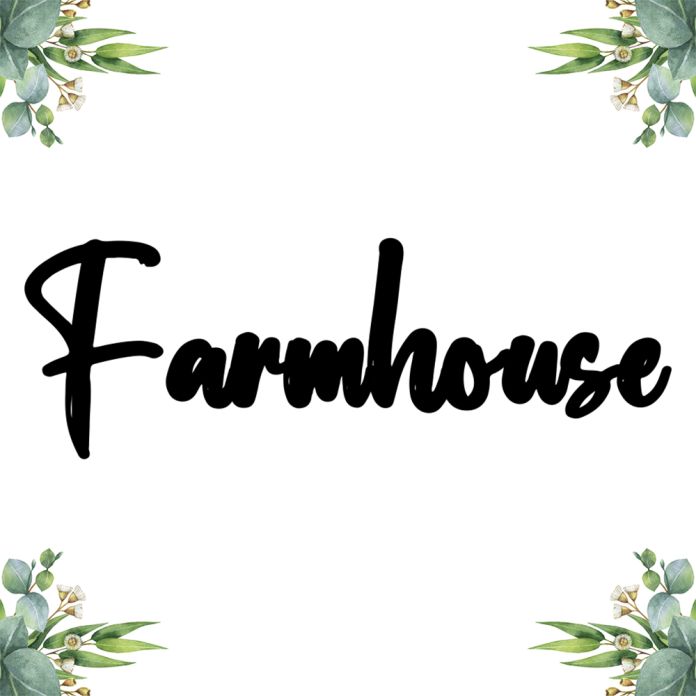
Farmhouse is a delicate, elegant, and flowing handwritten font. It has beautiful and well-balanced characters and as a result, it matches a wide pool of designs. Farmhouse is PUA encoded, which means you can access all of the glyphs and swashes with ease!